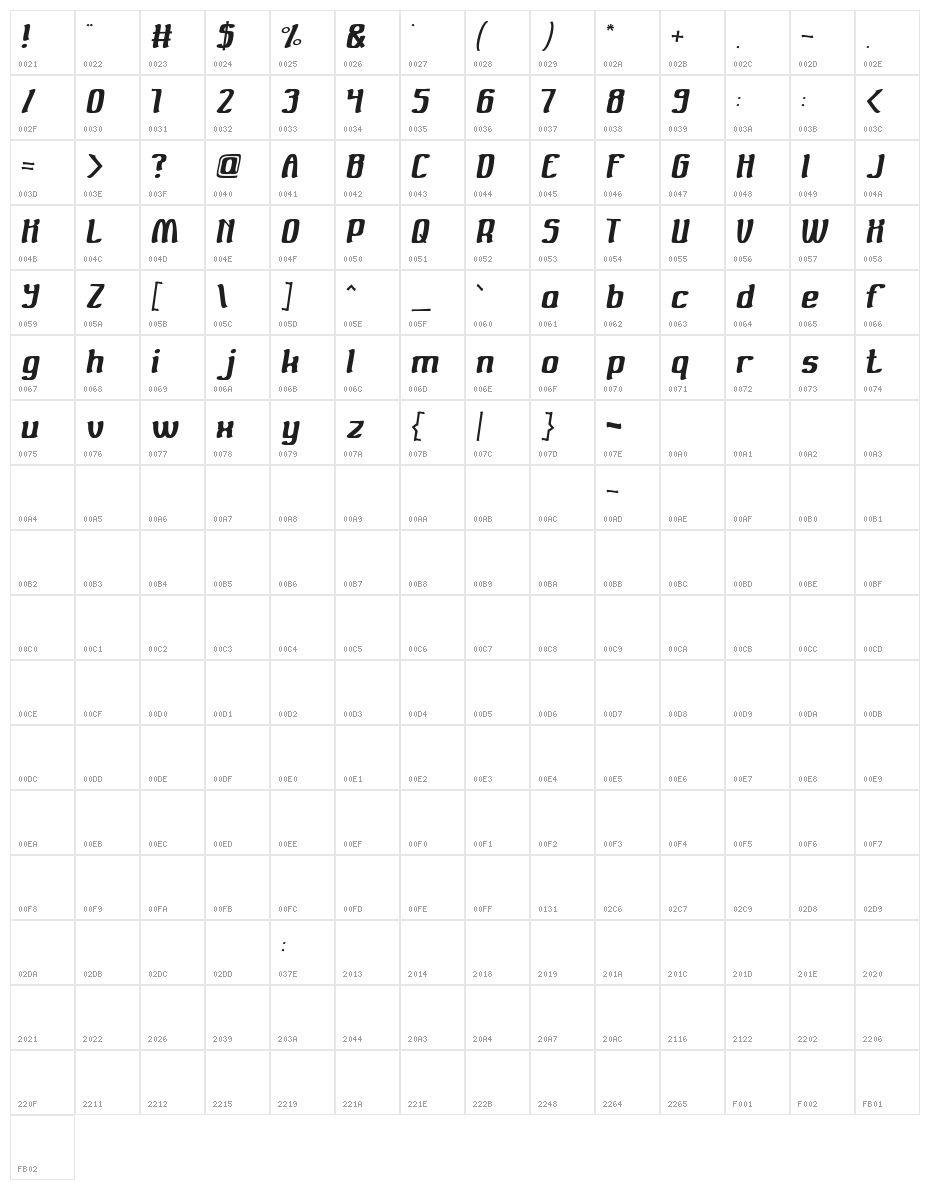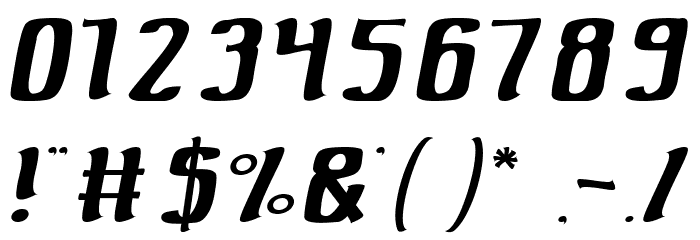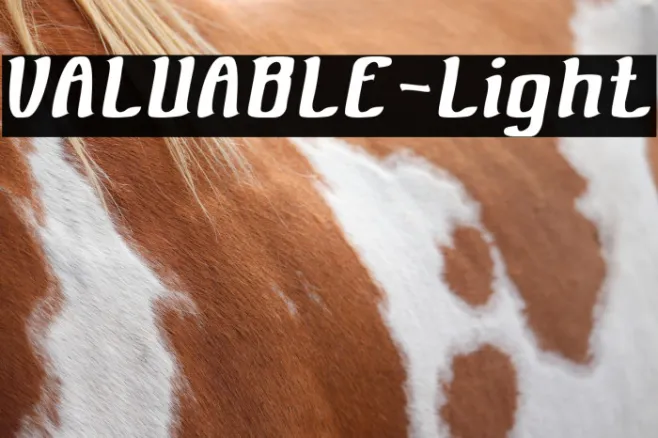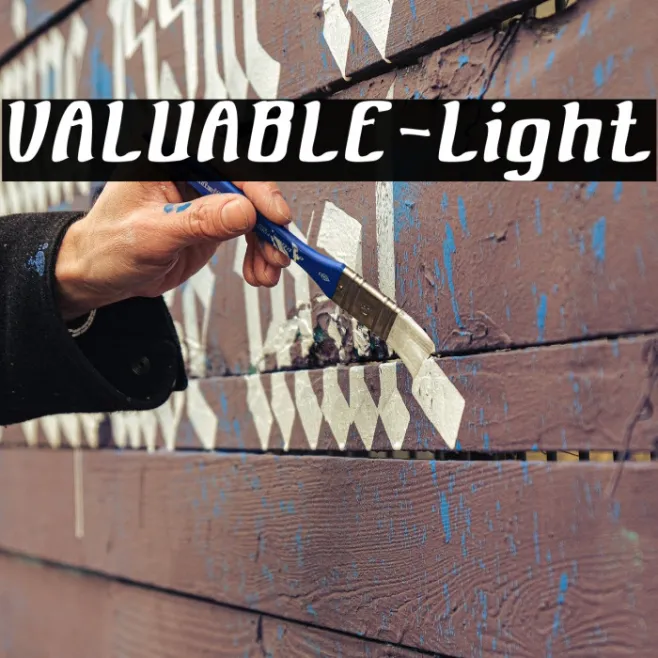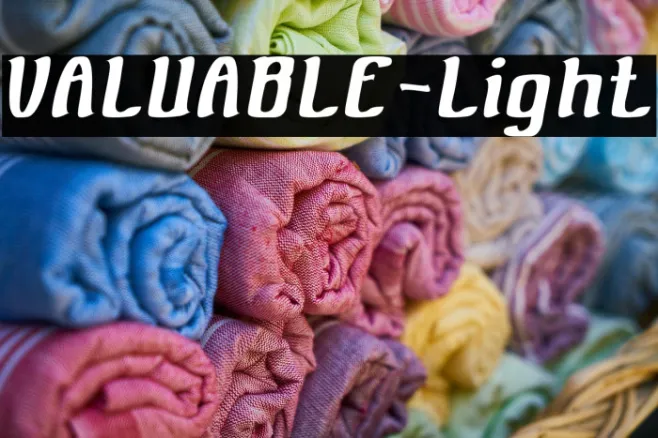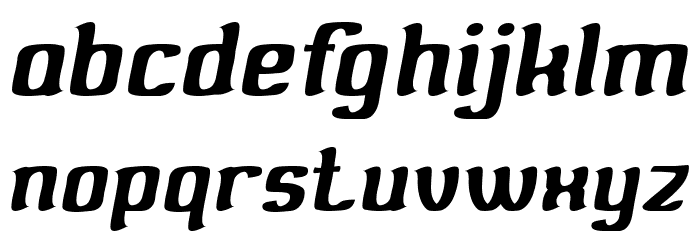
VALUABLE-Light Font
VALUABLE-Light Description
This font features a bold and dynamic style with a slight slant, giving it a sense of movement and energy. The characters are thick and robust, with rounded edges that soften the overall appearance. The uppercase letters are tall and commanding, while the lowercase letters maintain a consistent flow, complementing the uppercase with a slightly more relaxed form. The numerals are clear and distinct, ensuring readability. Special characters are designed to match the boldness of the alphabet, making them stand out effectively. This font is ideal for projects that require a strong visual impact while maintaining a friendly and approachable feel.
VALUABLE-LIGHT UPPERCASE
VALUABLE-LIGHT LOWERCASE
VALUABLE-LIGHT OTHER CHARS
| Proposed Projects | Ideal for branding, posters, headlines, and any design requiring a bold statement with a friendly touch. |